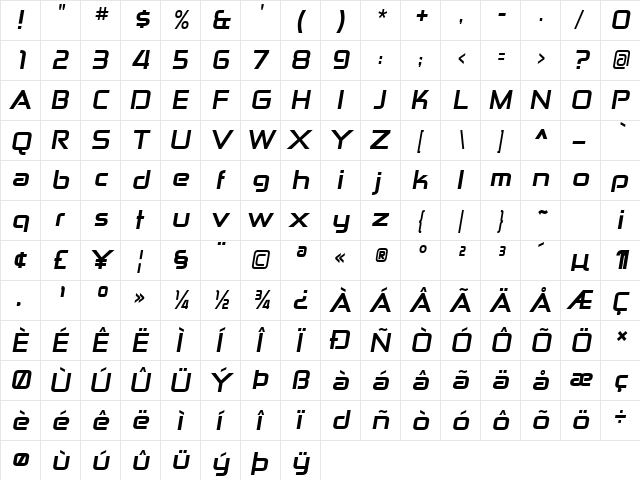
Zekton ExHv Italic Font Preview
Zekton ExHv Italic
Zekton ExHv Italic Font Details
Design Context for Zekton ExHv Typeface
Zekton ExHv offers clean, dependable letterforms without strong stylistic allegiance, making it a practical choice for designers who need flexibility. The slanted form adds forward momentum and visual energy.
Pro Tip: Use Zekton ExHv for emphasis, pull quotes, and subheadings where its slanted energy can add rhythm to the layout.